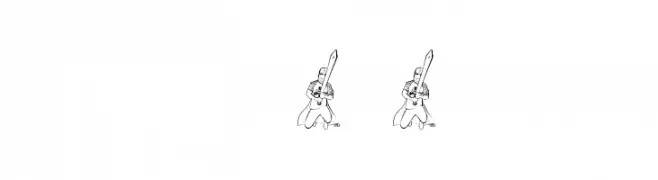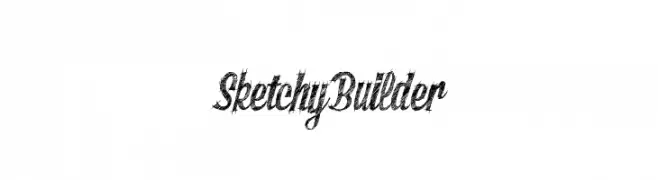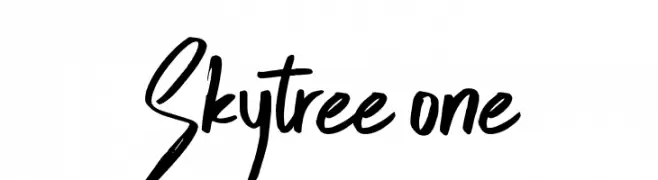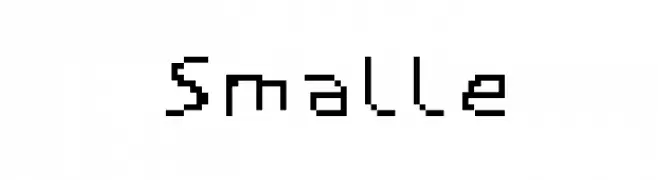
( cody - Codin Repsch )
A classic serif font with elegant lines and moderate contrast.
( Xerographer Fonts - Max Infeld - xerographer.blogspot.com )
A dynamic, sketchy font with a hand-drawn, energetic style.
( madeDeduk )
A bold, energetic script font with a hand-drawn, dynamic style.
( madeDeduk )
A bold and expressive handwritten font with dynamic strokes and tight spacing.
( dcoxy - Greg Medina - www.dcoxy.com/ )
A bold, cursive font with elegant flourishes and high contrast.
( dcoxy - Greg Medina - www.dcoxy.com/ )
A bold, brush-style script font with dynamic and expressive strokes.
A bold, dripping font with a horror-inspired, decorative style.
( myname5749 )
A dot matrix style font inspired by vintage LCD displays.
( memesbruh03 - Aaron D. Chand )
A pixelated, retro-style font with a digital, blocky appearance.
A playful, hand-drawn font with cartoon-like features and bold strokes.